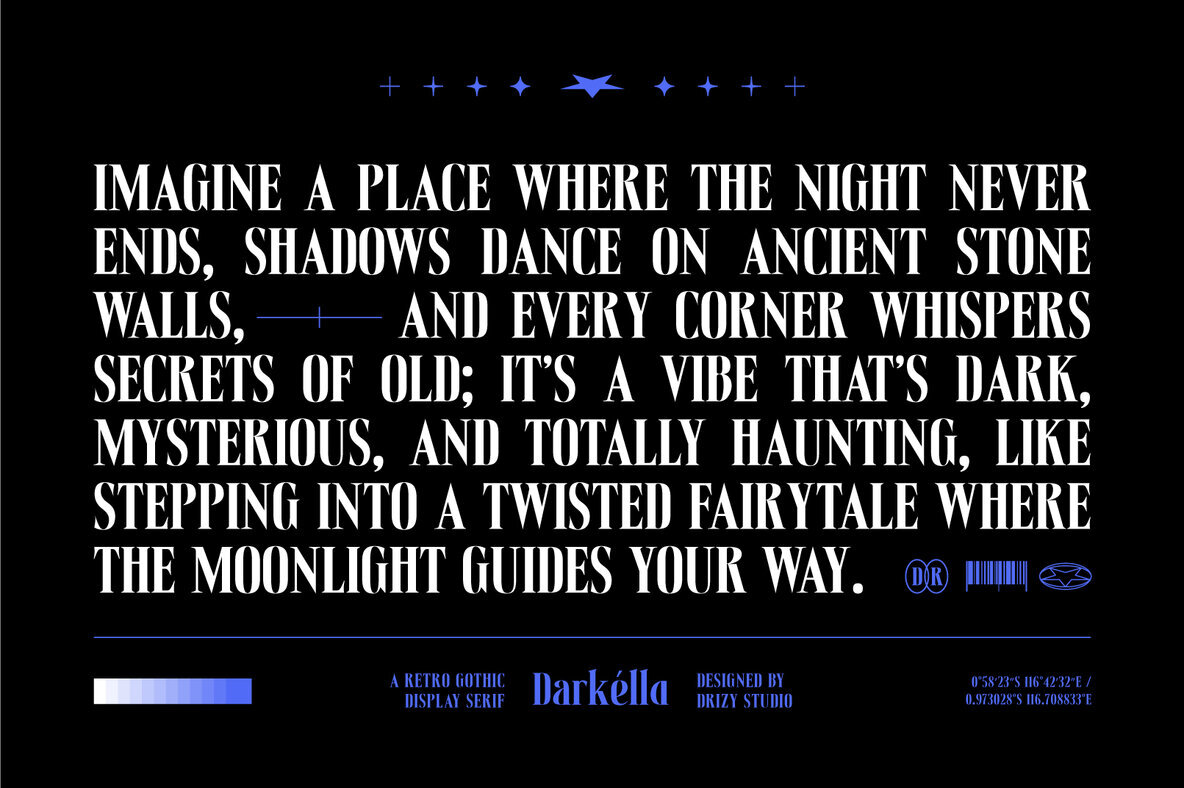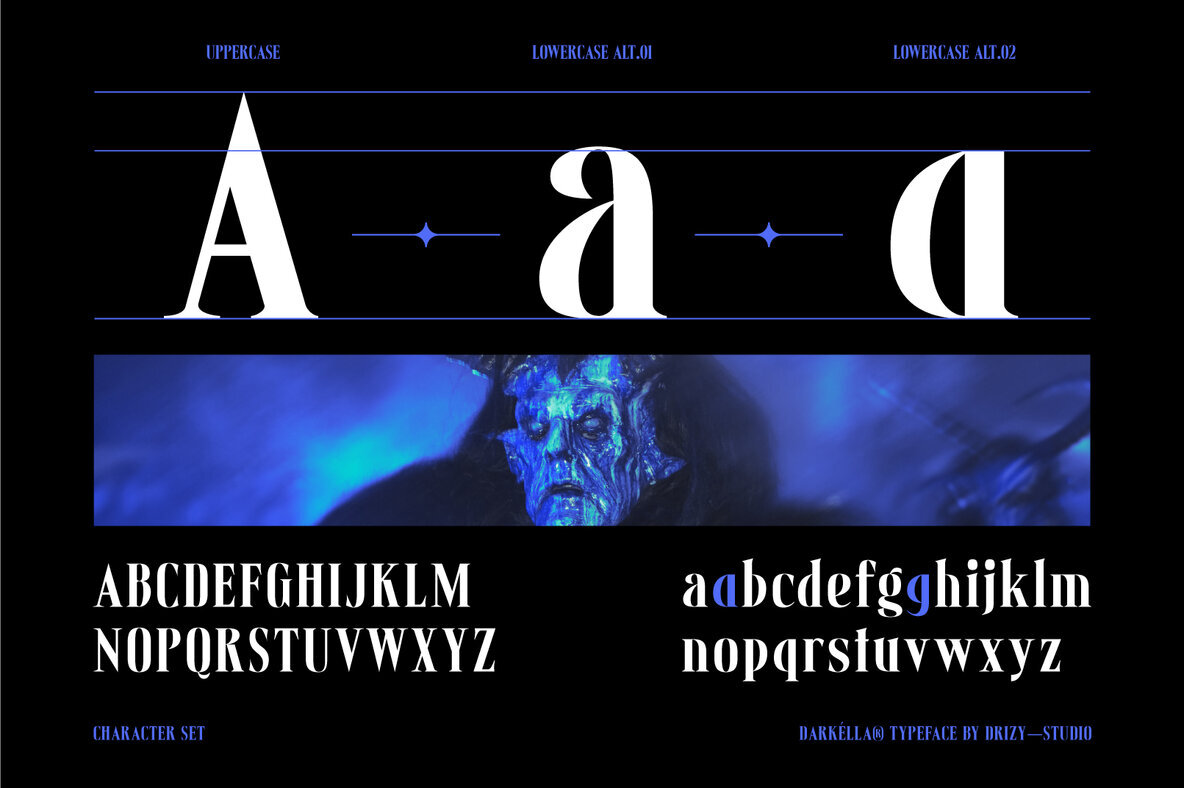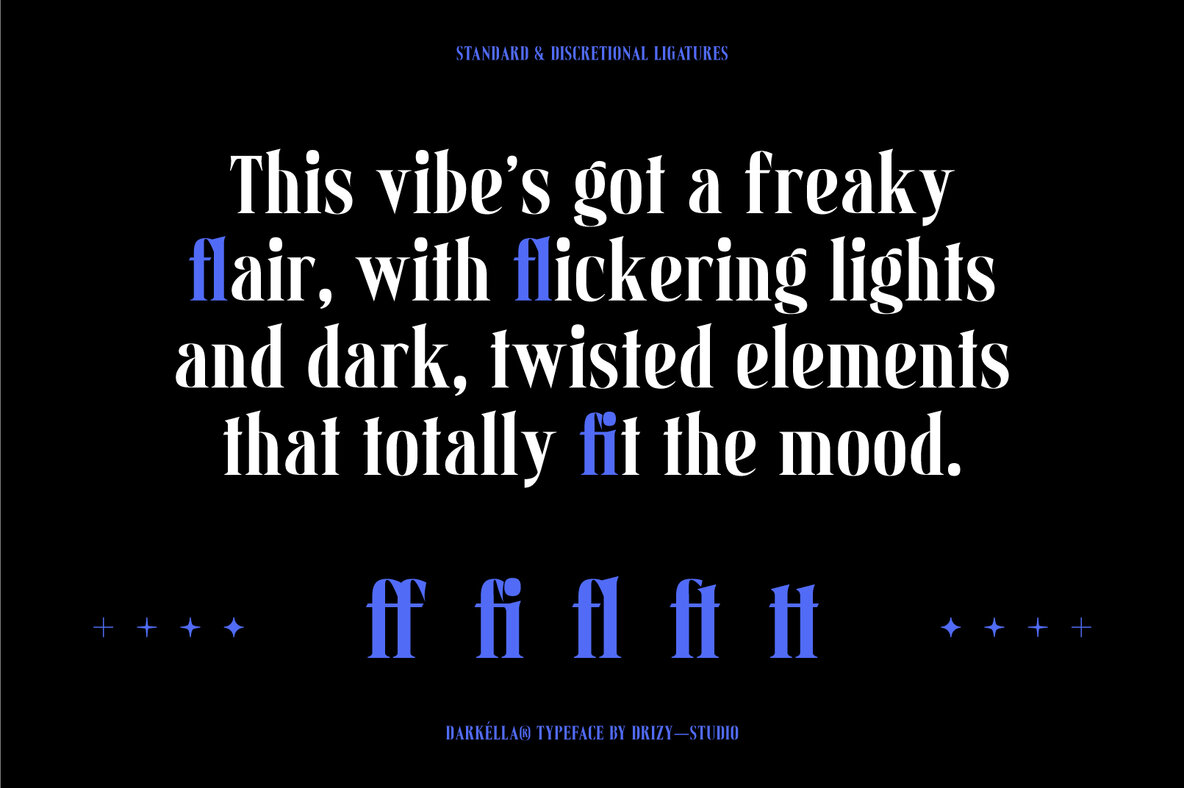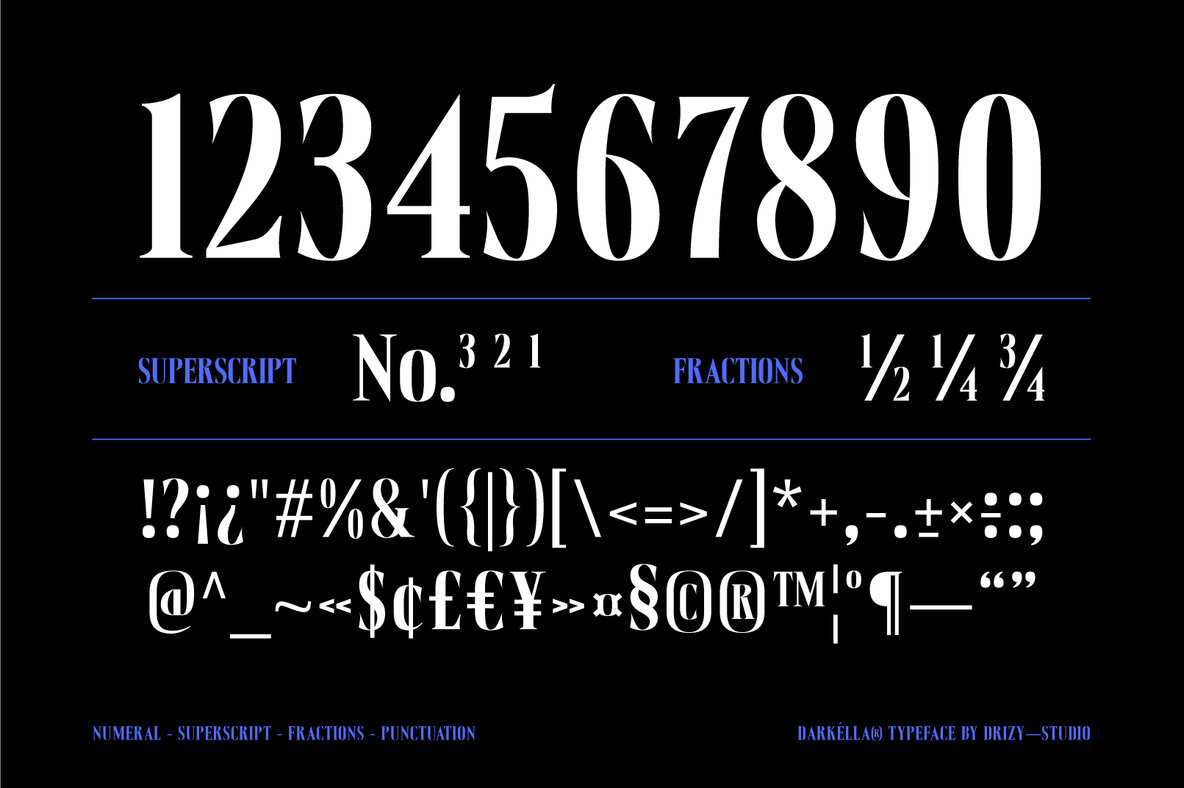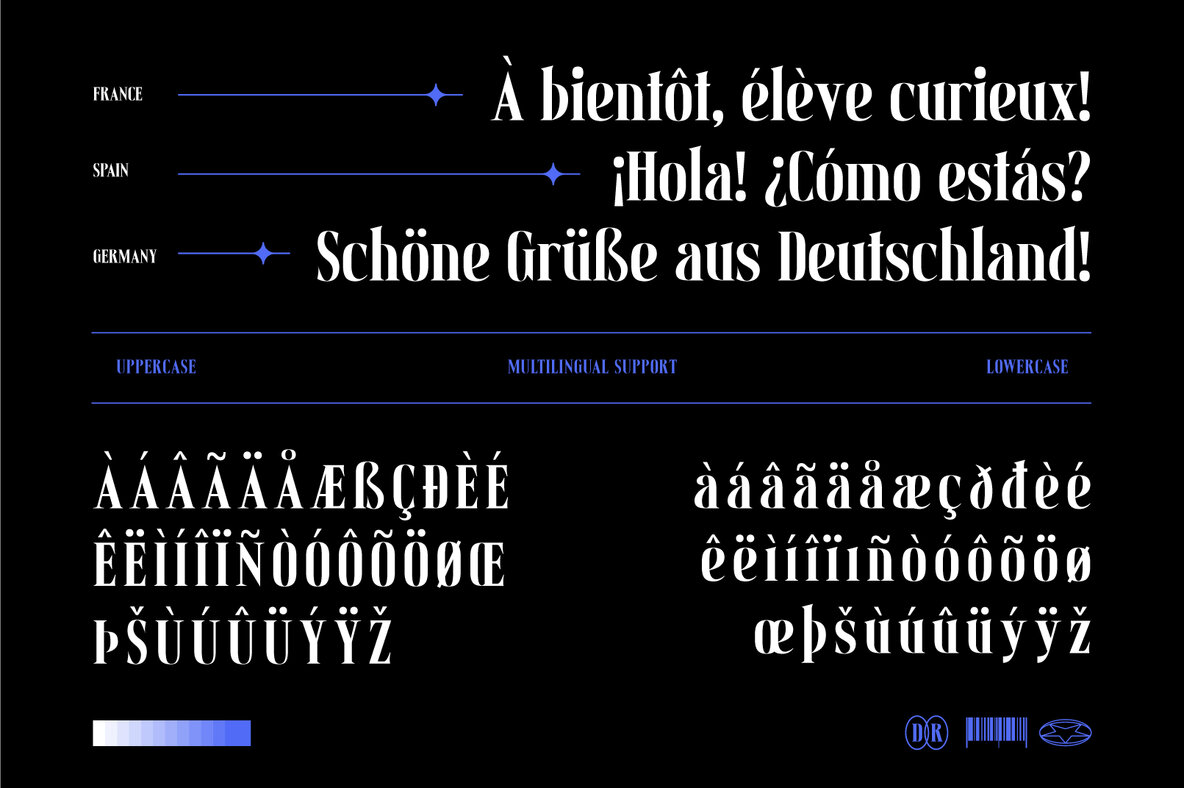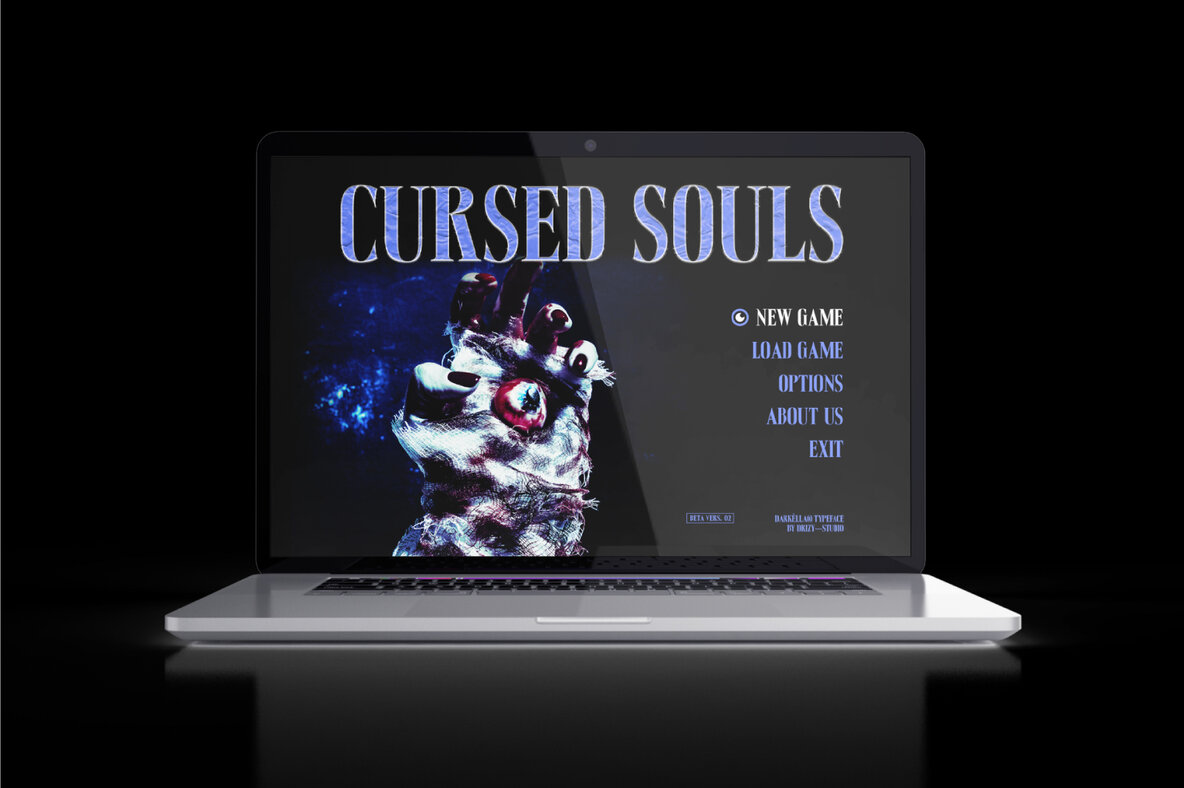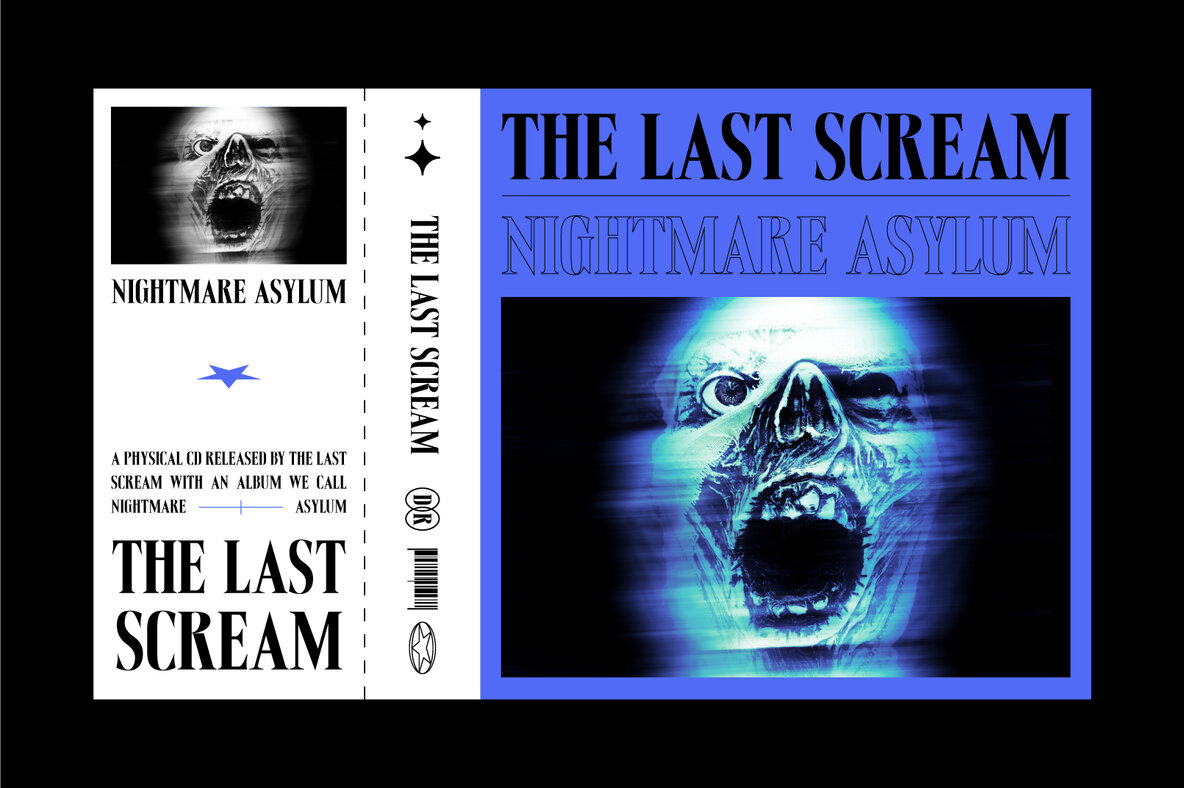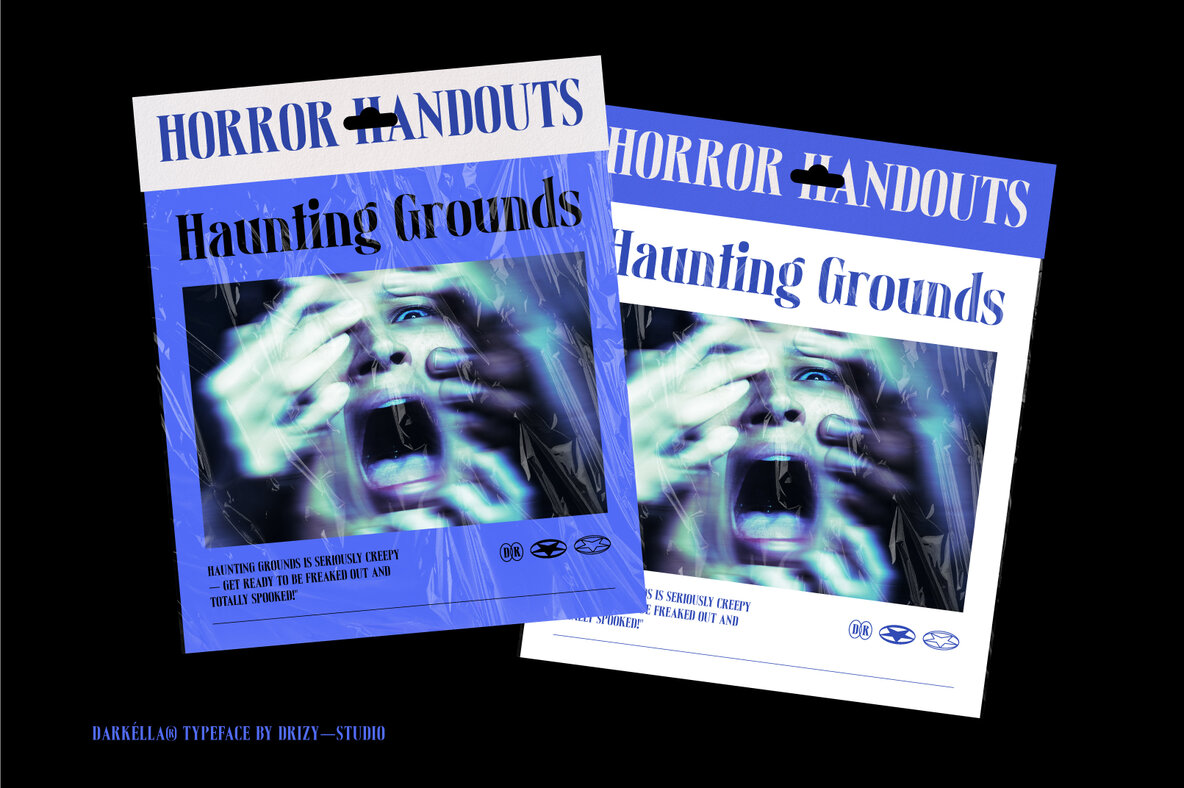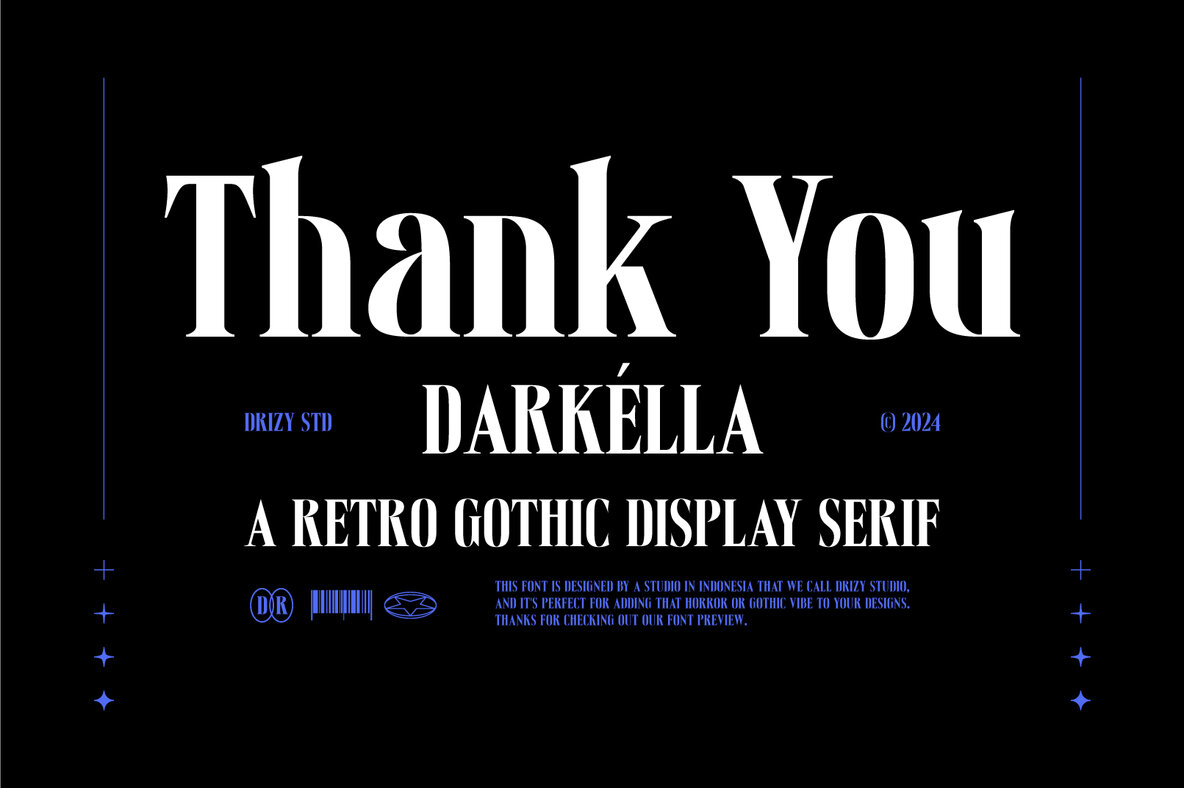
Darkella Font
Darkella Regular
Darkella is an enchanting blend of vintage elegance and dark allure, making it an excellent choice for Halloween-themed projects. With its bold and ornate letterforms, Darkella captures the eerie essence of classic gothic typography while adding a touch of retro flair. This font exudes a mysterious and haunting vibe, perfect for crafting spellbinding invitations, captivating posters, and eye-catching branding materials that demand attention. Whether you're evoking a spooky atmosphere or aiming for a timeless, dark aesthetic, Darkella will cast a powerful spell on your designs.
Darkella includes a comprehensive character set featuring both uppercase and lowercase letters, punctuation, numbers, and multilingual support. Special features include alternates for "a" and "g" and both standard and discretionary ligatures. This extensive feature set makes Darkella versatile and adaptable, allowing you to create intricate and unique compositions easily. Perfectly suited for designers looking to add a touch of dark sophistication to their work, Darkella stands out as a captivating and versatile retro gothic display serif font.